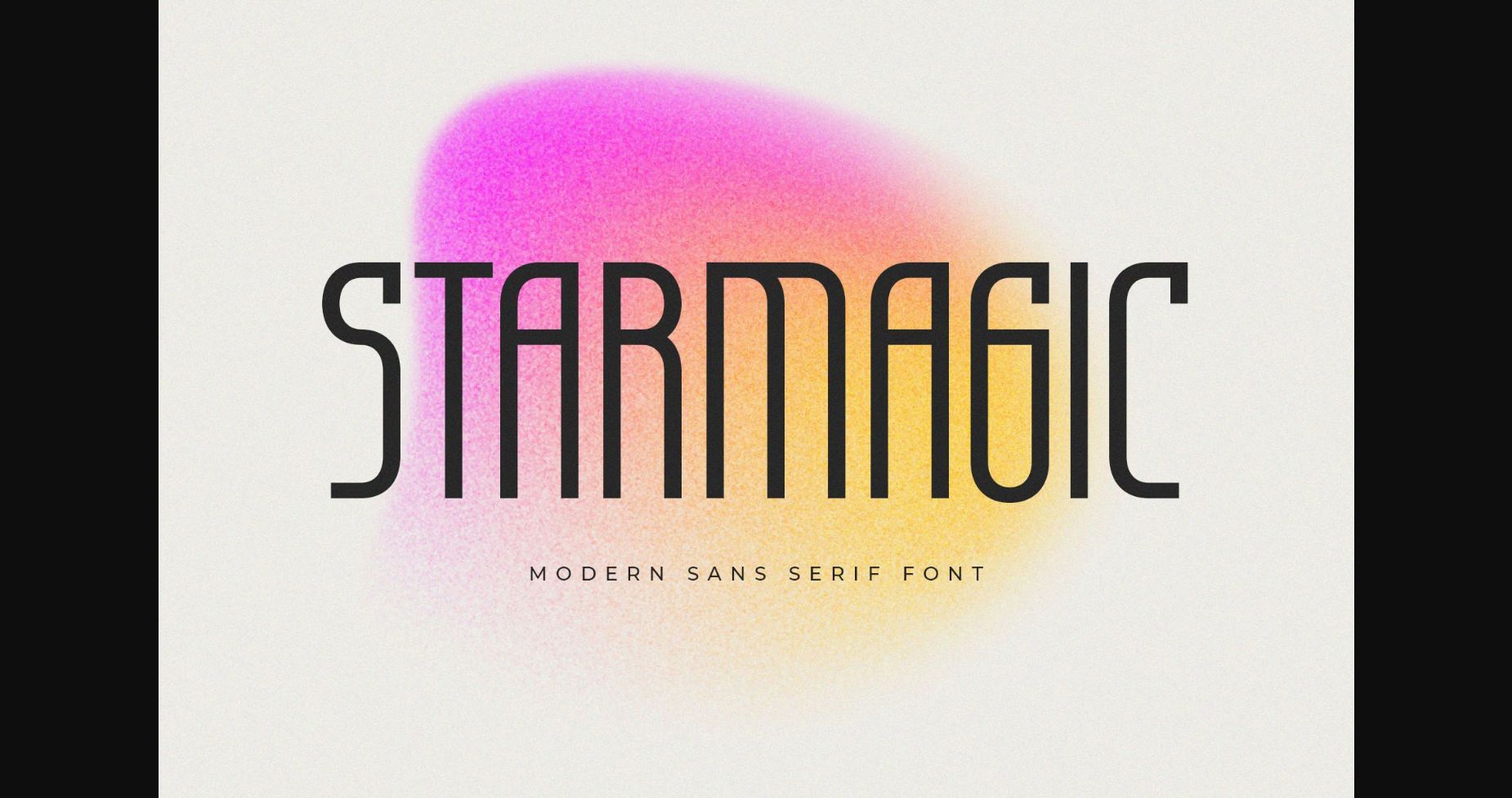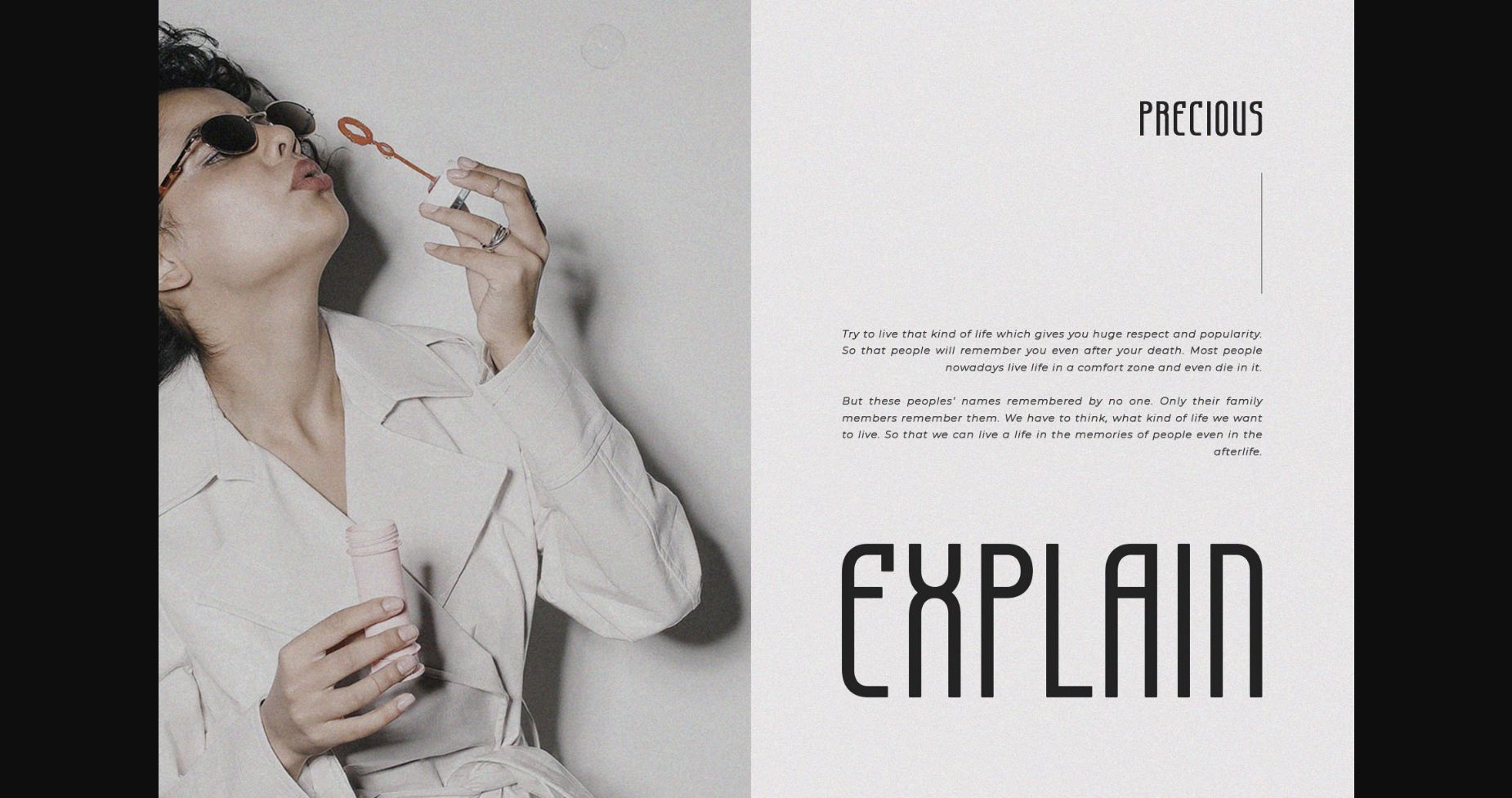
About Starmagic Font
Starmagic is a modern and classy typeface, best used as a display for headings, logos, branding, magazines, product packaging, and invitations. Starmagic comes with clean lines and smooth curves giving any project an extra touch of class.